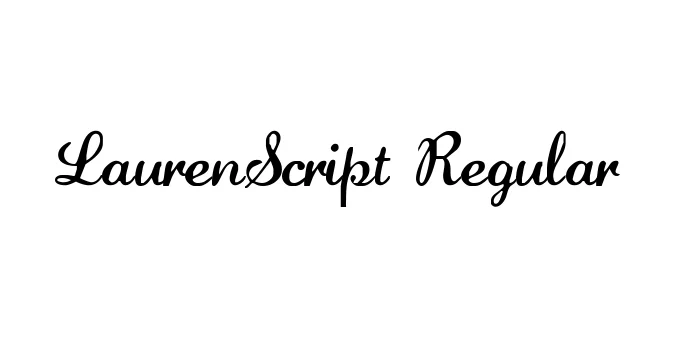
LaurenScript Regular
Designed by Gary Munch
LaurenScript Regular is an elegant, fluid script typeface that captures the essence of refined handwriting. Created to mimic the natural flow of a fountain pen, it features delicate strokes and graceful connections between characters. This font stands out for its readability compared to more ornate copperplate scripts, making it a versatile choice for designers looking for a sophisticated touch without sacrificing clarity.
Over the years, LaurenScript has become a staple in invitation design and high-end branding. Its timeless appeal lies in its balanced proportions and rhythmic movement, which evoke a sense of personal craftsmanship. Whether used in digital media or traditional print, the typeface maintains its integrity, providing a professional yet intimate aesthetic suitable for formal occasions and premium product packaging.
LaurenScript Regular Best Uses
Perfect for elegant and personalized wedding stationery.
Ideal for boutique brands and professional identities.
Enhances premium cosmetic or luxury food product labels.
Great for inspirational quotes and sophisticated aesthetic posts.